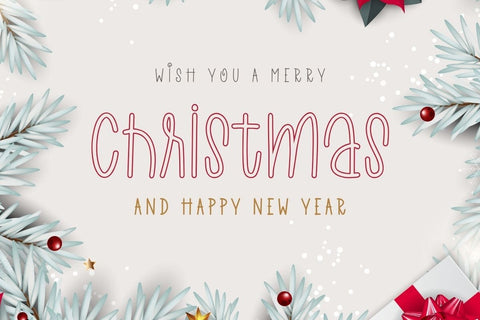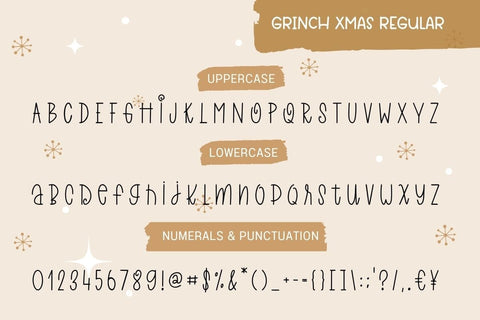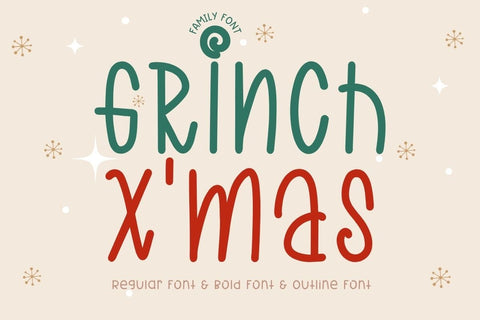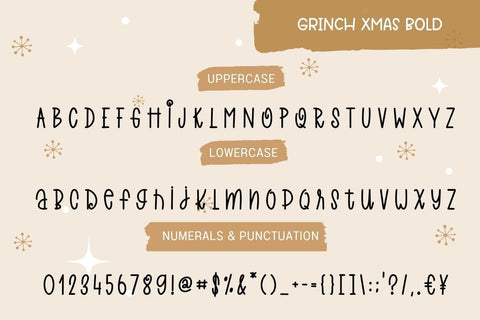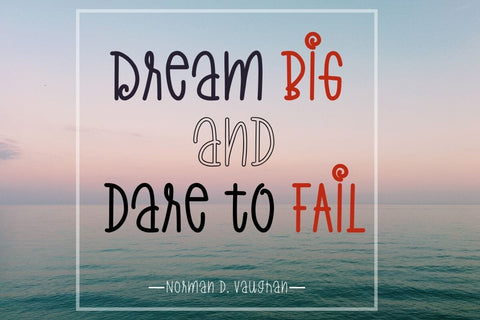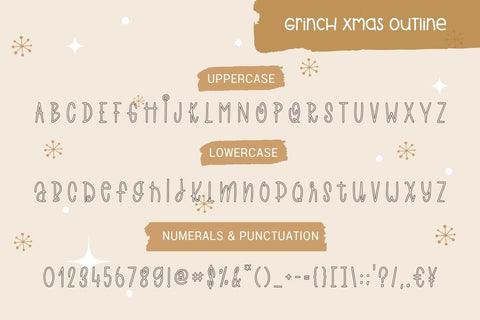
Grinch Xmas - Swirly Christmas Font Family (3 Styles)
Grinch Xmas – a delightfully whimsical and playful handwritten font family that brings immediate character and holiday cheer to any project! This charming font features unique swirls and curly tails on select letters, adding a fun, bouncy rhythm. The font comes as a versatile 3-Style Family, including Regular, Bold, and Outline versions, perfect for layering and creating eye-catching designs.